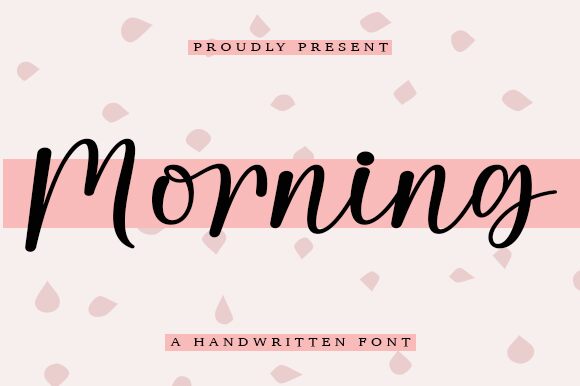
Rise and shine! Meet Morning, the cute handwritten font designed by Wahyu Setiyawan. With its playful curves and charming imperfections, Morning is perfect for adding a touch of whimsy to your designs. This versatile font is suitable for a range of projects, from children's books to greeting cards to social media graphics. Whether you want to evoke a sense of warmth and friendliness or add a bit of lightheartedness to your branding, Morning has got you covered. So grab yourself a cup of coffee and start creating!